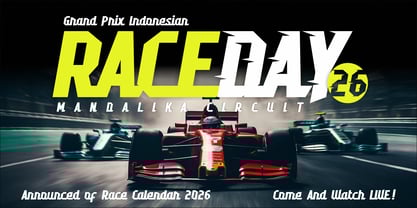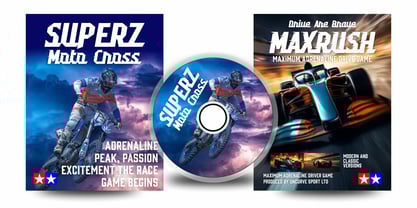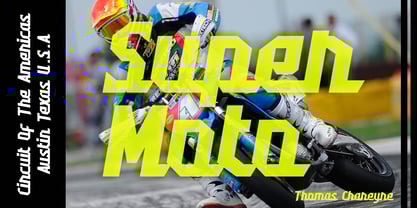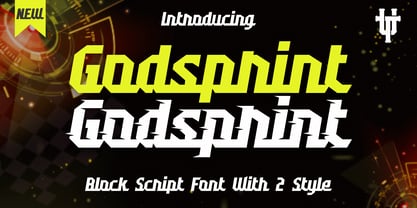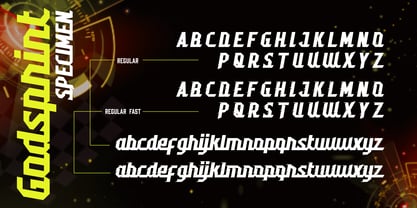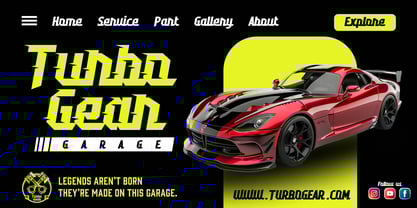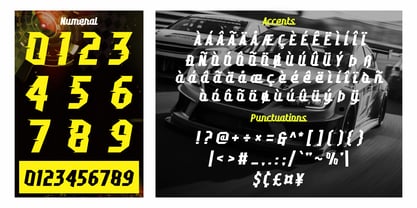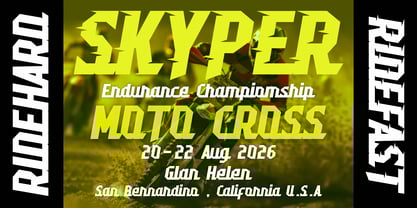
Godsprint
by Uncurve
The Godsprint Font Family was designed by Ferry Septian and published by Uncurve. Godsprint contains 2 styles and family package options.
Introducing “Godsprint”, a script block racing font built to embody the raw energy, speed, and power of the track. This font comes in two dynamic styles — Regular and Fast, giving you the flexibility to create bold and eye-catching designs. Inspired by sporty and racing typography, Godsprint is perfect for projects that demand power, motion, and precision. Its aerodynamic letterforms are made to make your design look fast and fierce — ideal for racing themes, motorsport branding, automotive logos, sports graphics, game titles, apparel, transportation, and event posters. Whether for a logo or a headline, Godsprint brings style, energy, and speed to every letter.